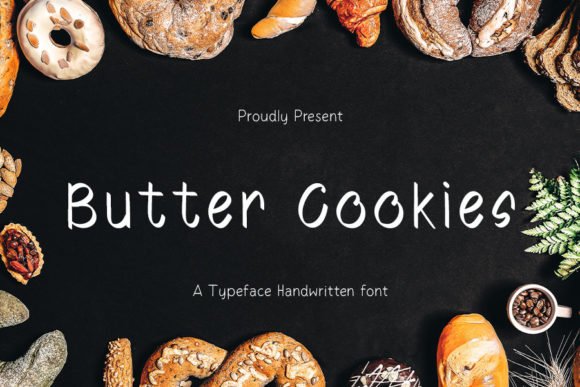
The Perfect Bite of Typography: Introducing Butter Cookies Font
Have you ever stared at a blank design canvas, desperately searching for the perfect font to bring your vision to life? That’s exactly what happened to me the other day, and I’m still grinning from ear to ear because I stumbled upon the most delightful discovery – Butter Cookies Font.
This charming, handwritten font has quickly become my go-to companion for all sorts of design projects. With its minimalist and versatile style, Butter Cookies Font is the perfect fit for a wide range of designs, from elegant invitations to playful social media graphics.
As a designer, you know how valuable it is to have a reliable font that can elevate your creations and leave a lasting impression. That’s exactly what Butter Cookies Font offers – a clean, simple, and highly customizable font that’s sure to become your favorite choice for any occasion.
Butter Cookies Font Key Features
- Font Family: A modern, elegant sans-serif font designed to evoke the feel of butter cookies.
- Unique Characteristics: The font features a unique, hand-drawn feel with subtle texture and imperfections, giving it a distinctive, artisanal look.
Butter Cookies Font Review
I recently had the chance to work with the Butter Cookies Font, and I wanted to share my honest thoughts on this unique font.
- ✨ Beautifully designed, the Butter Cookies Font has a unique aesthetic that’s both playful and elegant.
- ✨ The font is highly customizable, making it perfect for designers who like to experiment with different styles.
- ✨ The font’s weight range is impressive, offering a variety of options for different design needs.
- ⚠️ The font may not be the best choice for formal or professional designs, as its playful nature may not be suitable for serious content.
- ⚠️ The font’s readability may decrease at smaller font sizes, making it essential to test it thoroughly in different contexts.
Overall, I’m impressed with the Butter Cookies Font’s unique design and high level of customization. While it may not be suitable for all design projects, it’s a great option for designers looking to add some personality to their work.
For the best results, use the Butter Cookies Font for titles, headings, and short paragraphs.
It’s also suitable for packaging design, invitations, and other creative projects.
Experiment with different font sizes and styles to achieve the desired look.
Alternatives to Butter Cookies Font for Designers
Great Vibes is a beautiful, elegant script font perfect for creating a sophisticated and stylish look. It’s ideal for use in wedding invitations, greeting cards, and other special occasions. Compared to Butter Cookies Font, Great Vibes Font has a more refined and classic feel, making it suitable for a wider range of design projects.
Carolyna Pro is a modern script font with a unique, hand-drawn feel. It’s perfect for use in branding, packaging, and advertising designs where a touch of elegance and sophistication is needed. Compared to Butter Cookies Font, Carolyna Pro has a more contemporary and edgy feel, making it suitable for bold and eye-catching designs.
Playfair Display is a luxurious, high-end font perfect for use in premium branding, advertising, and editorial designs. It’s ideal for creating a sense of opulence and sophistication. Compared to Butter Cookies Font, Playfair Display has a more formal and elegant feel, making it suitable for high-end design projects.
Alex Brush is a beautiful, handwritten font perfect for creating a personal and emotional connection with your audience. It’s ideal for use in greeting cards, invitations, and other special occasions. Compared to Butter Cookies Font, Alex Brush has a more casual and handwritten feel, making it suitable for a wide range of design projects.